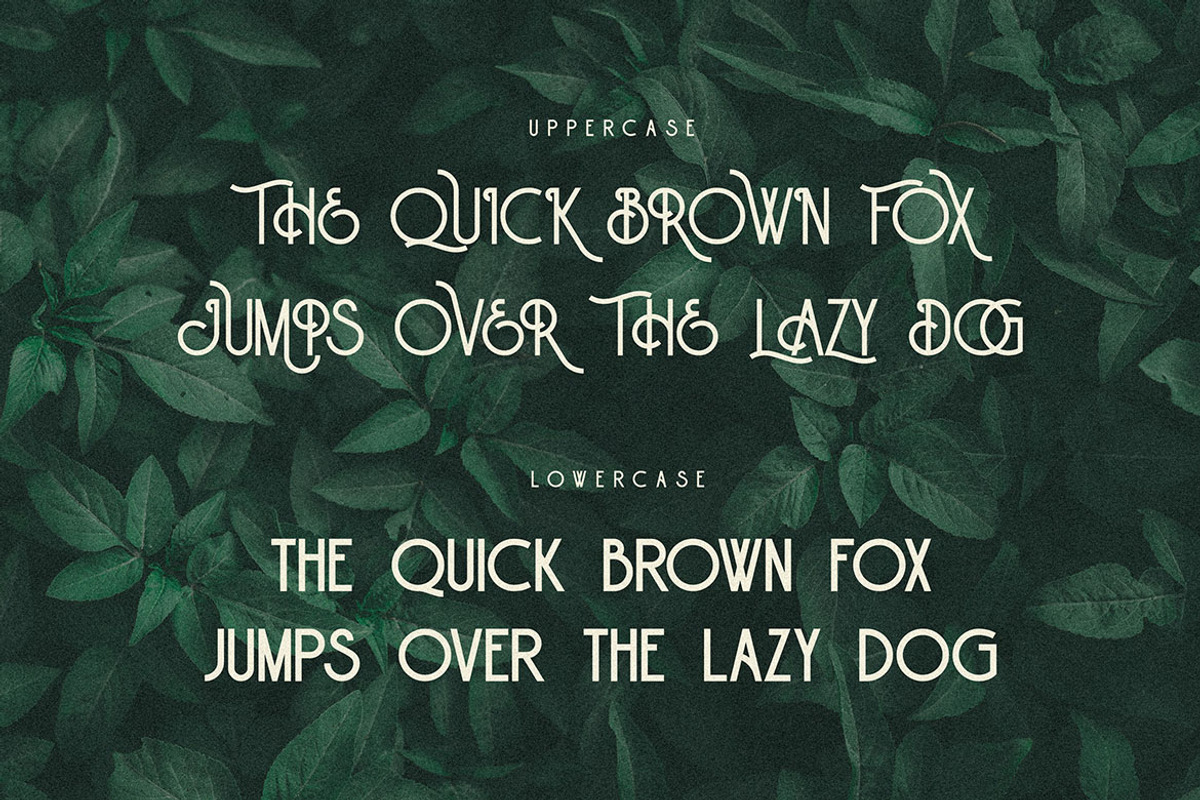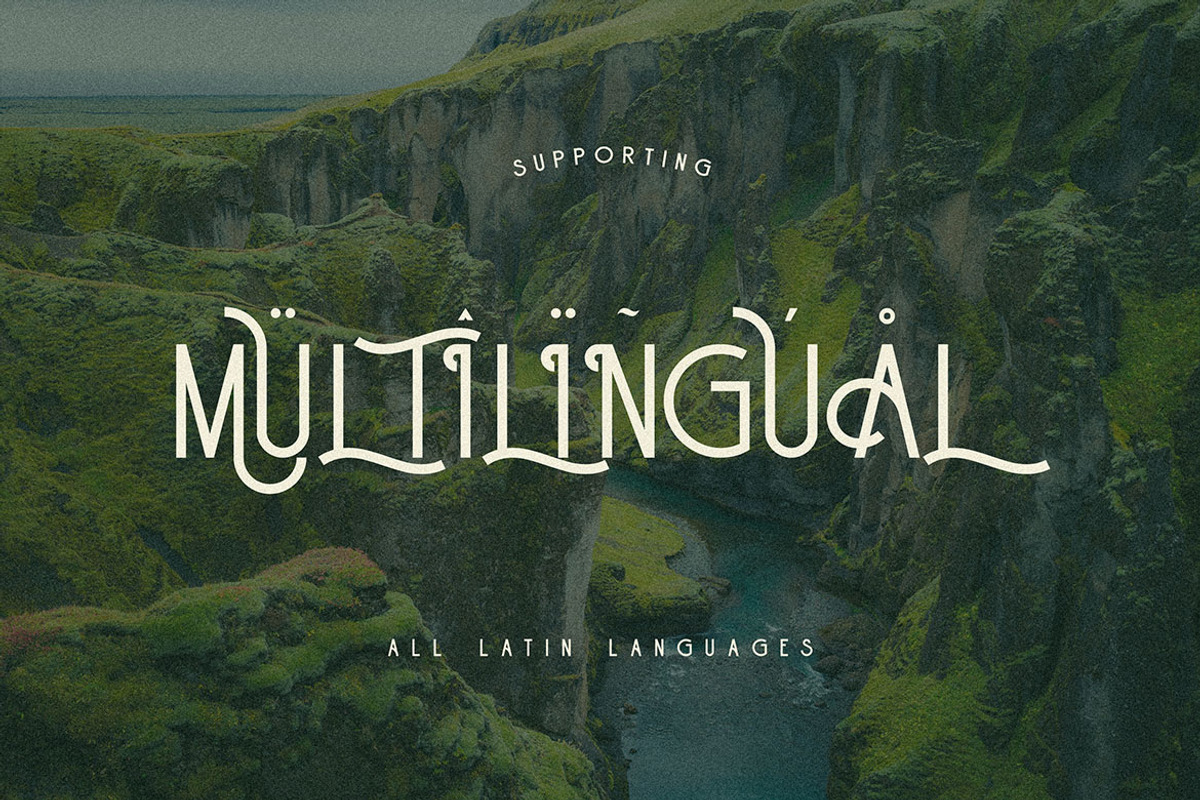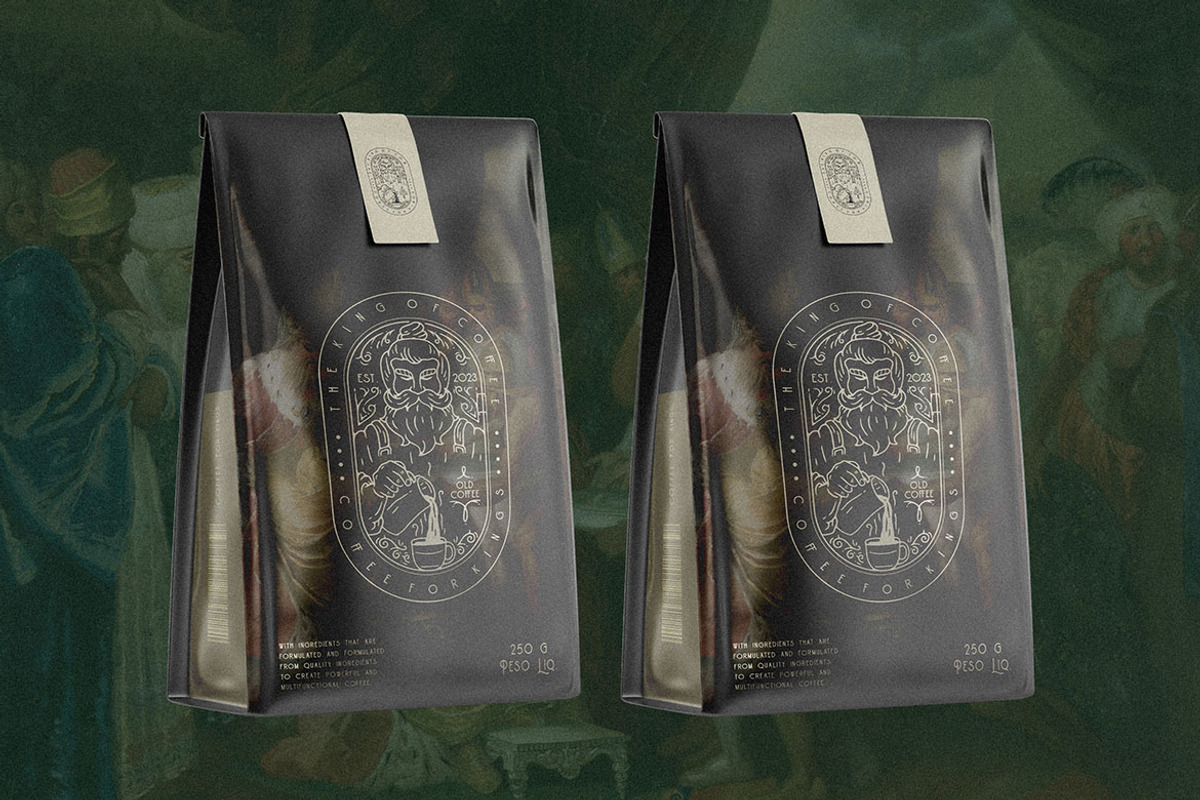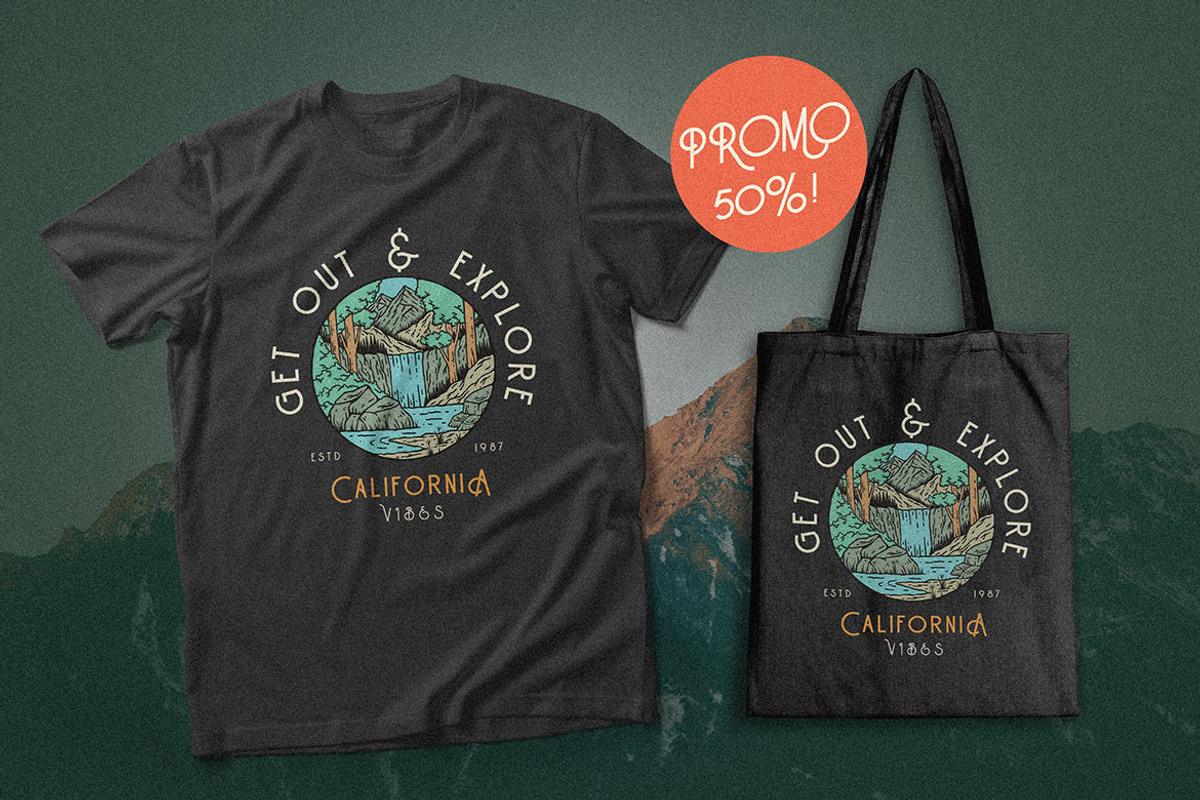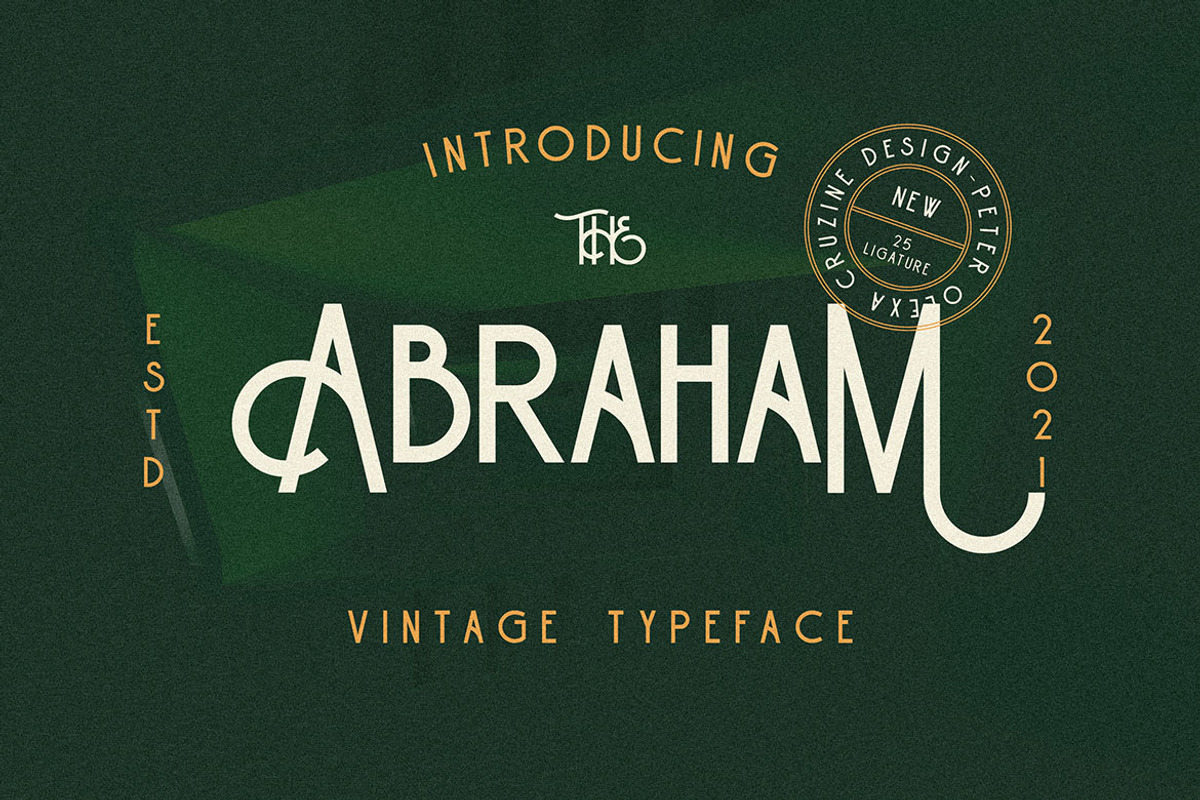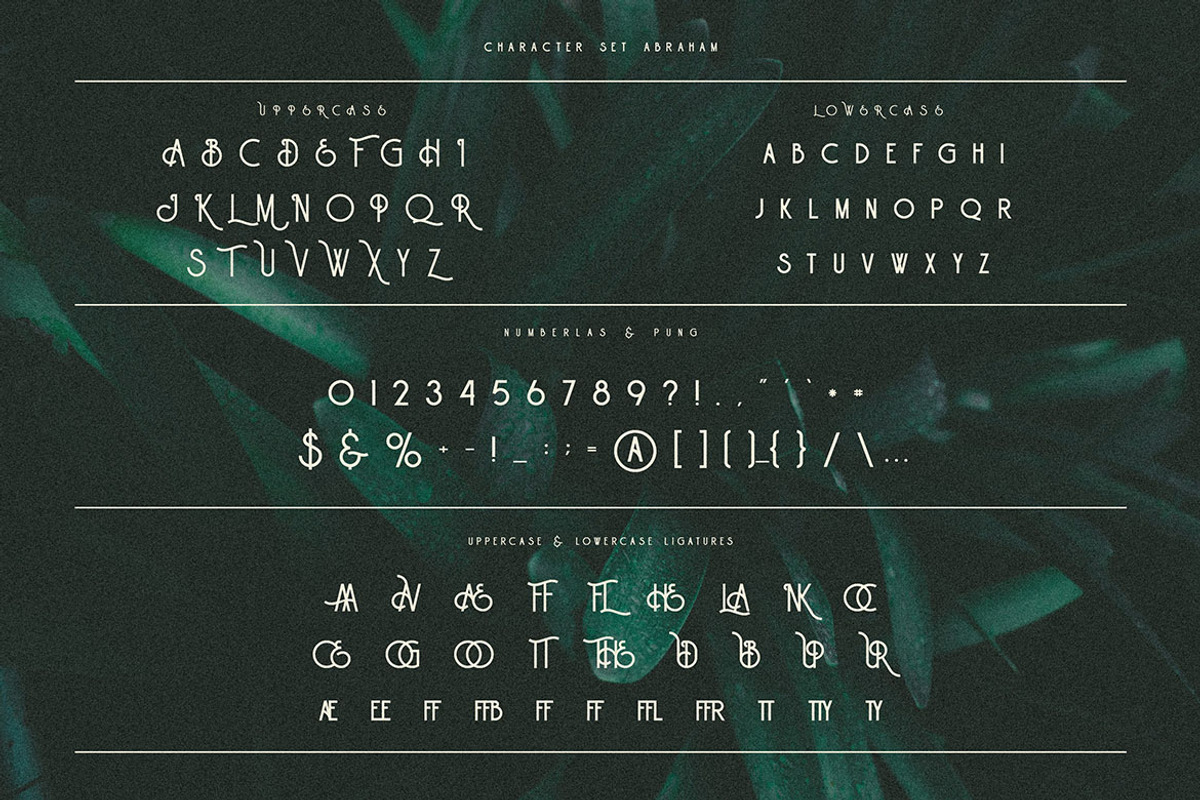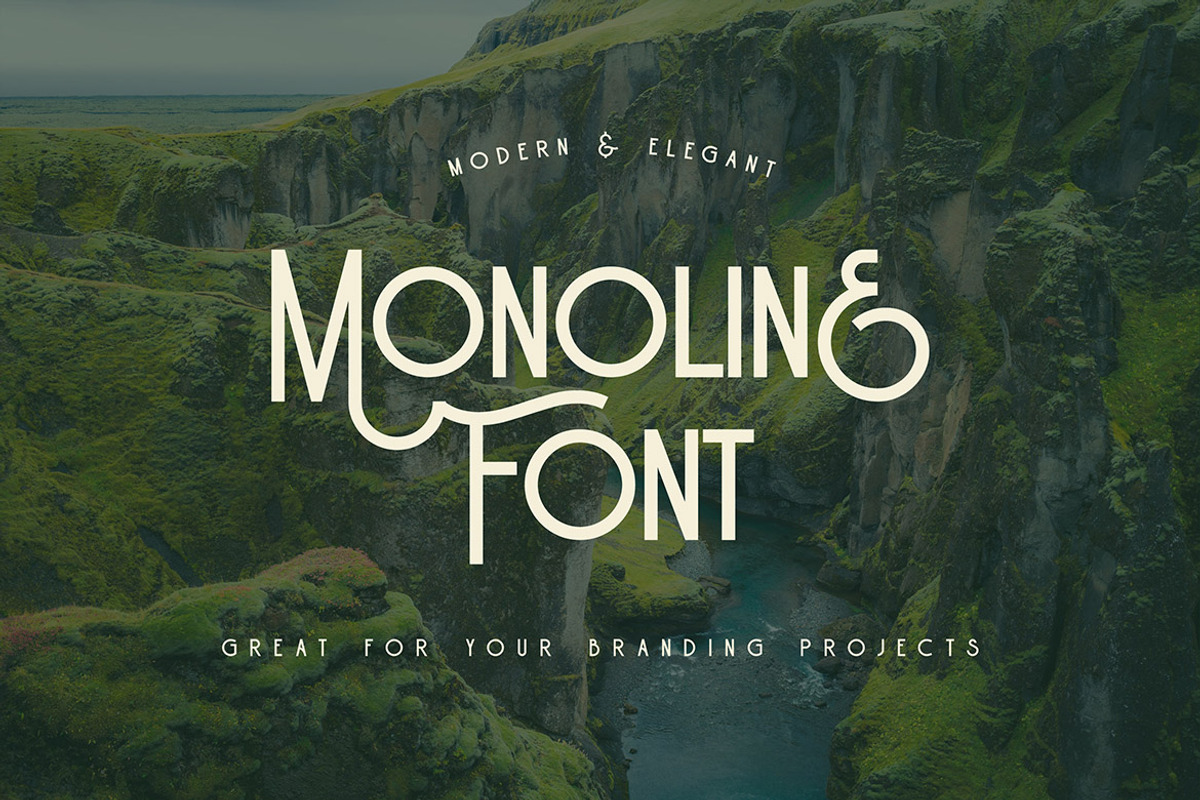
Abraham Vintage Monoline Font
Unique monoline, vintage & decorative sans font. Comes with multilingual support & ligatures - great for your new logo or branding project.
- Great for retro or vintage style branding projects